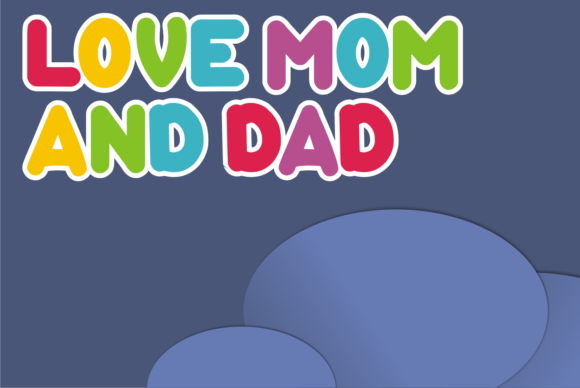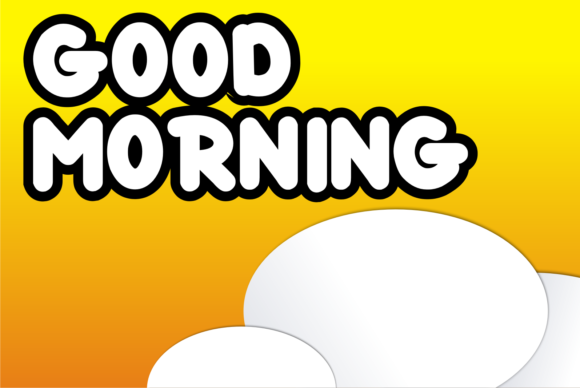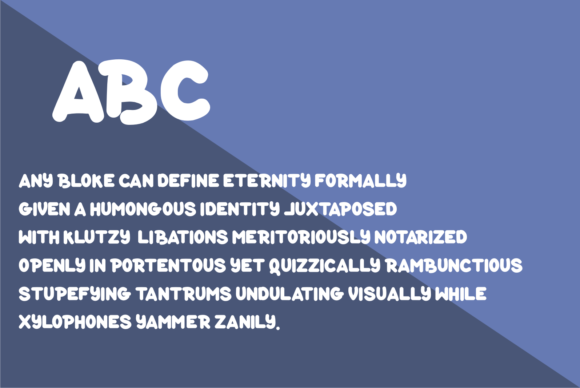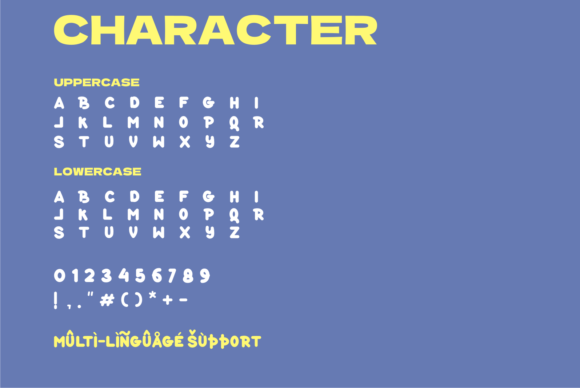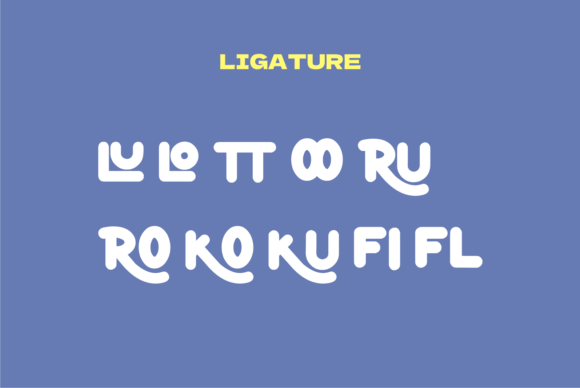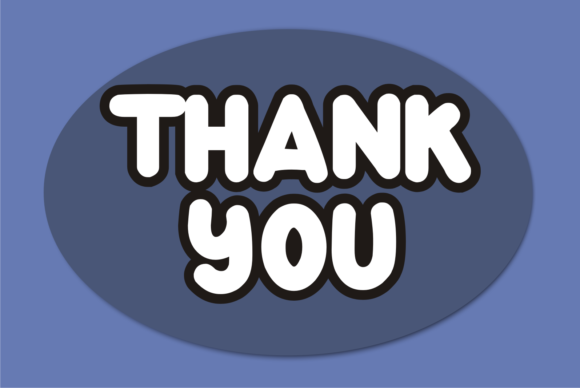
Introduction to Lokui Font
Lokui is a cool and trendy-looking display font.
This font is great for logos, badges, clothing, posters, and other projects that need to stand out from the crowd .
Key Features of Lokui Font
Why Choose Lokui Font?
Lokui Font offers exceptional quality and versatility, making it a valuable addition to your design toolkit. Whether you’re creating for personal projects or commercial use, Lokui Font delivers professional results.